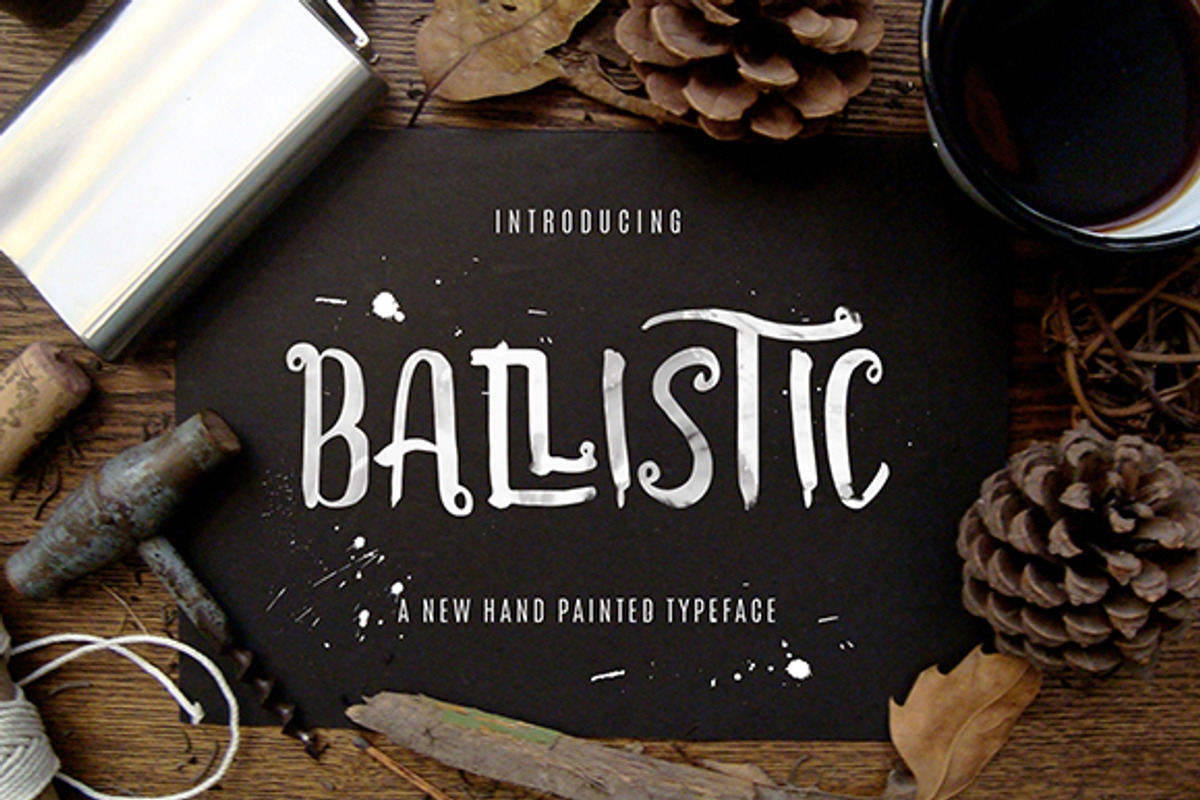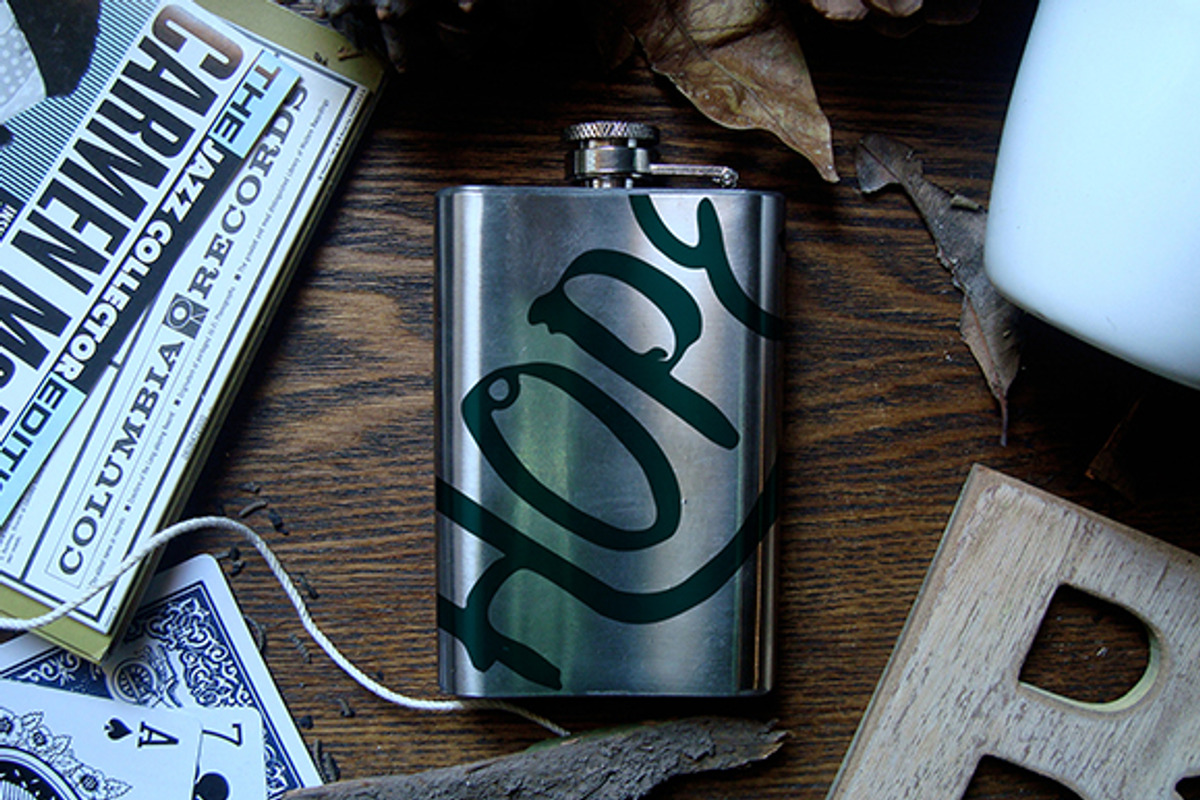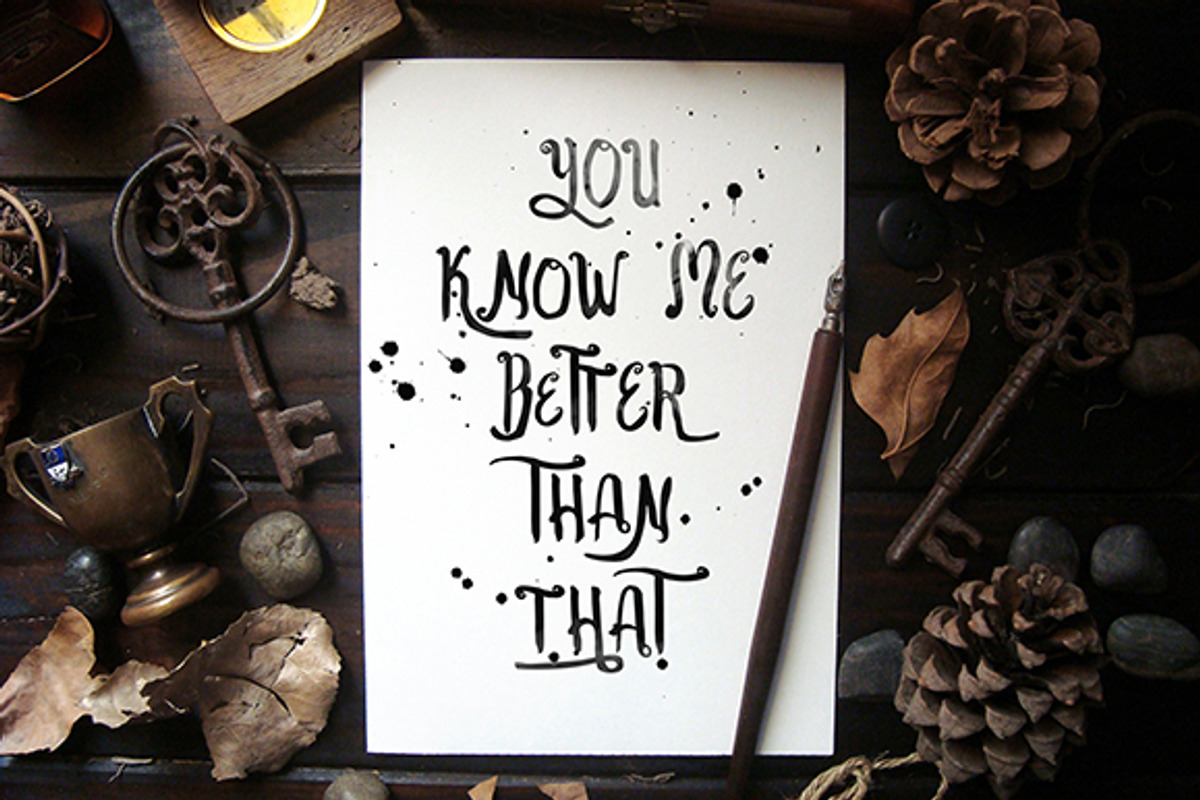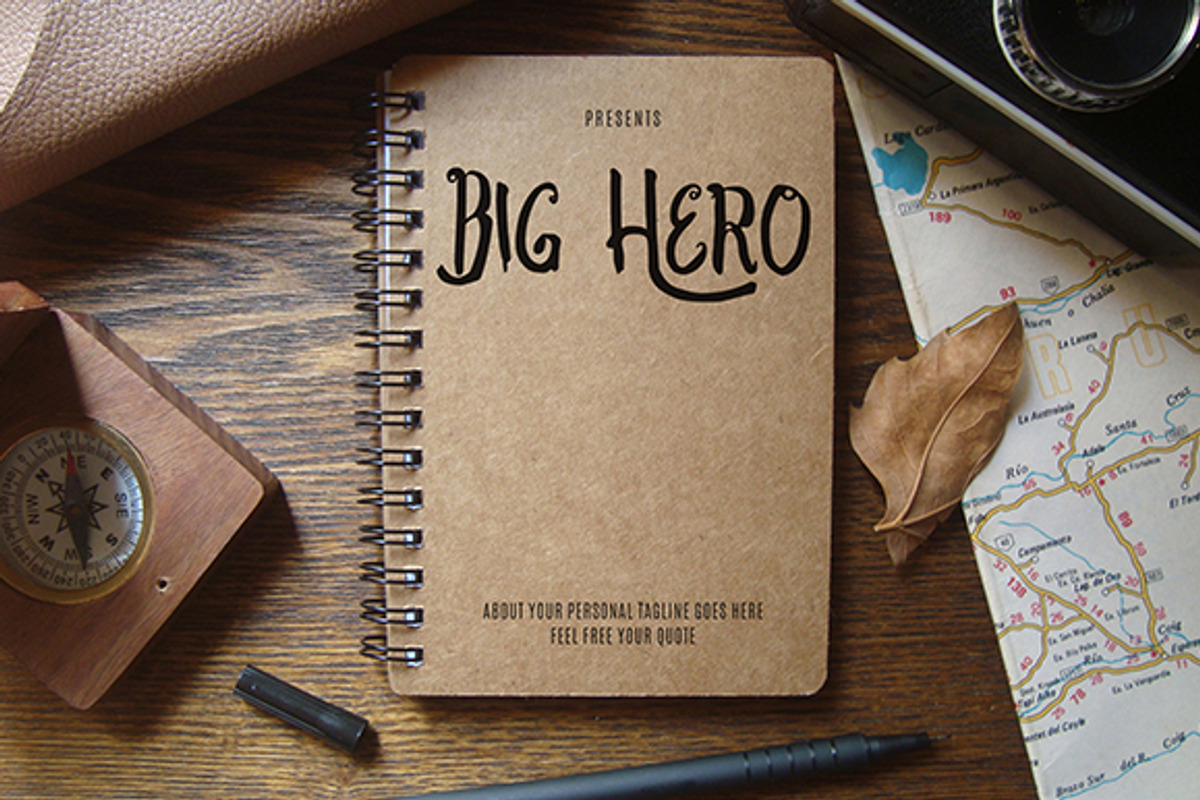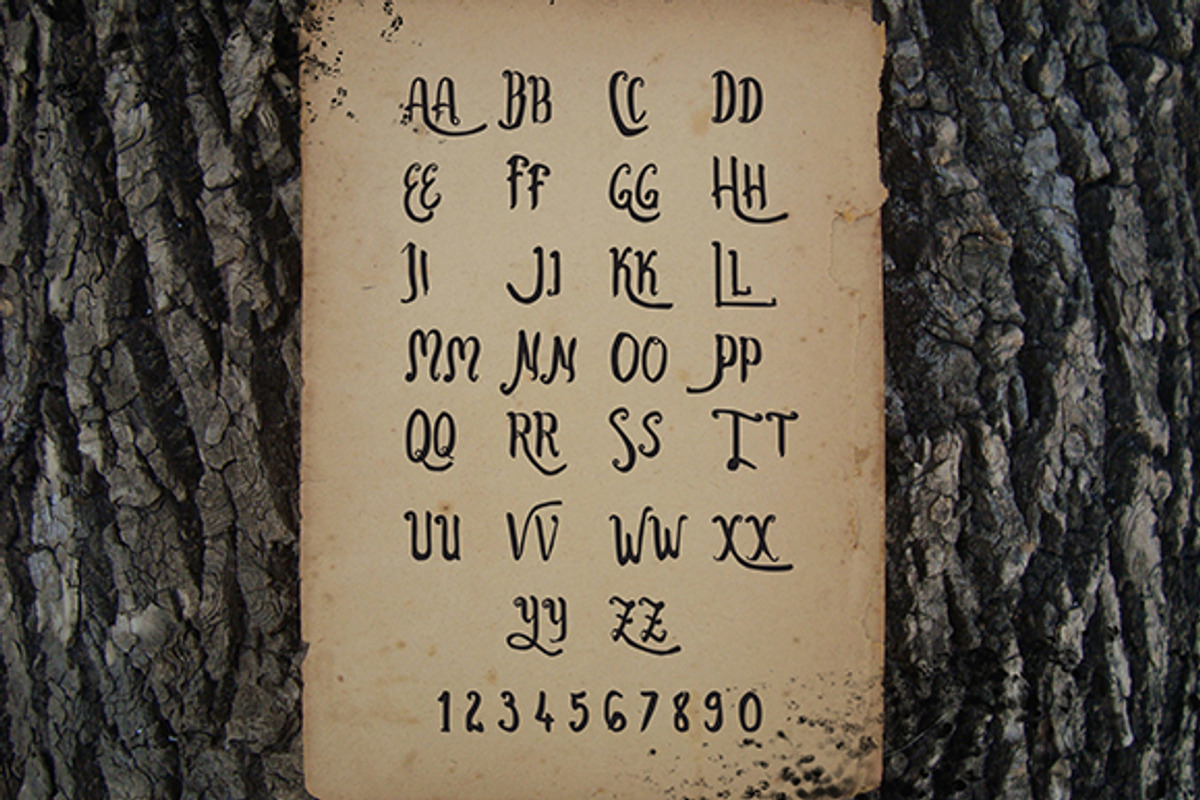
Ballistic Typeface
Can be used for various purposes.such as headings, signature, logos, wedding invitation, t-shirt, letterhead, signage, label, news, posters, badges etc.